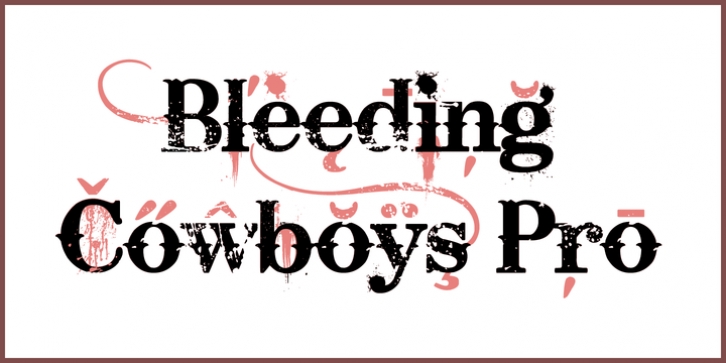
Bleeding Cowboys Pro was designed by Roger Nelsson, Guillaume Séguin and published by CheapProFonts. Bleeding Cowboys Pro contains 1 style.
A very popular grungy font, now made even more useful! With this Pro version you have the possibility to tone it down a bit - I have made alternate letters without swashes (use the OpenType Swash feature to
switch them) and without so much bleed (use the OpenType Stylistic Alternates/ss01 feature). And then you can turn it up again by adding six different swashes to any letter! Write { or < before a letter to add a swash to the left side, ^ will add one above - and/or write } or > after a letter to add a swash to the right side, _ will add one below. Added fun and language support!
ALL fonts from CheapProFonts have very extensive language support: They contain some unusual diacritic letters (some of which are contained in the Latin Extended-B Unicode block) supporting: Cornish, Filipino (Tagalog), Guarani, Luxembourgian, Malagasy, Romanian, Ulithian and Welsh. They also contain all glyphs in the Latin Extended-A Unicode block (which among others cover the Central European and Baltic areas) supporting: Afrikaans, Belarusian (Lacinka), Bosnian, Catalan, Chichewa, Croatian, Czech, Dutch, Esperanto, Greenlandic, Hungarian, Kashubian, Kurdish (Kurmanji), Latvian, Lithuanian, Maltese, Maori, Polish, Saami (Inari), Saami (North), Serbian (latin), Slovak(ian), Slovene, Sorbian (Lower), Sorbian (Upper), Turkish and Turkmen.
And they of course contain all the usual "western" glyphs supporting: Albanian, Basque, Breton, Chamorro, Danish, Estonian, Faroese, Finnish, French, Frisian, Galican, German, Icelandic, Indonesian, Irish (Gaelic), Italian, Northern Sotho, Norwegian, Occitan, Portuguese, Rhaeto-Romance, Sami (Lule), Sami (South), Scots (Gaelic), Spanish, Swedish, Tswana, Walloon and Yapese.
Font Family: Bleeding Cowboys Pro